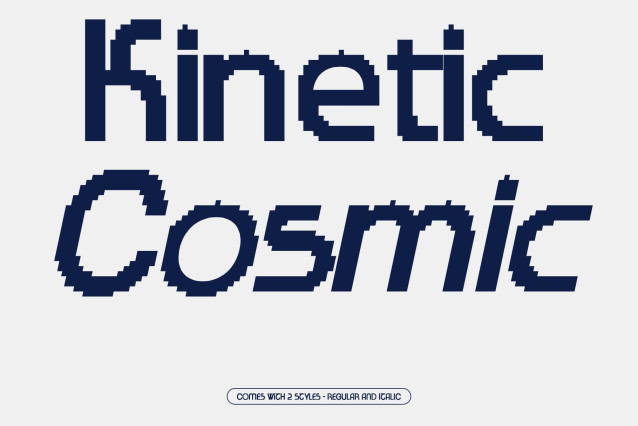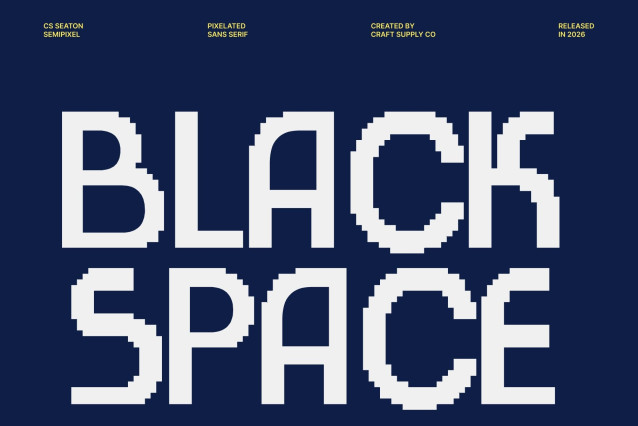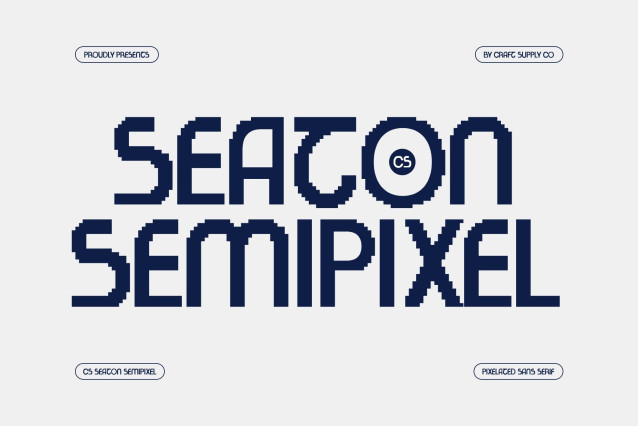
CS Seaton Semipixel – Modern Sans Serif Font: Where Digital Precision Meets Smooth Pixel Geometry
Structured Modern Forms with Crisp Digital Clarity
This is a modern sans serif font reconstructed through a crisp pixel grid, transforming contemporary minimalism into bold digital clarity. Its structured geometry and clean alignment create a fresh and innovative visual identity filled with precision, balance, and futuristic simplicity. Every character feels sharp and highly functional, making the font perfect for modern digital compositions and technology-focused design projects.
Semipixel Style with Smooth Contemporary Curves
This font combines pixel-inspired square forms with modern curves and refined details. Unlike traditional rigid pixel fonts, its softened construction creates a smoother and more fluid appearance while preserving the nostalgic spirit of retro digital typography. The result is a clean and versatile style that feels both futuristic and approachable.